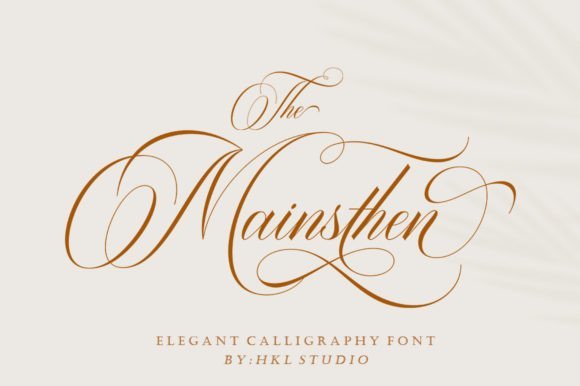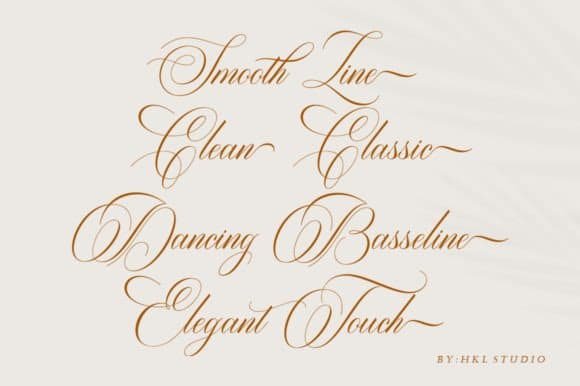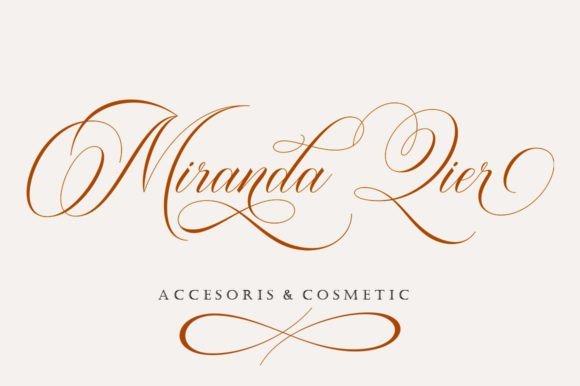
The Mainsthen Font is a calligraphy script font that comes with exquisite character changes, a kind of classic copper decorative script with a modern twist, designed with high detail to bring out an elegant style. This font is interesting because it has a soft, clean, feminine, sensual, glamorous, simple, and very easy-to-read look. It is suitable for invitations, labels, restaurant menus, logos, fashion, makeup, stationery, novels, magazines, books, greeting/wedding cards, packaging, labels, or any type of advertising purposes.